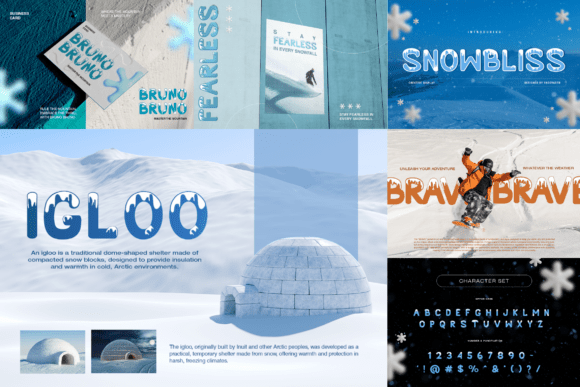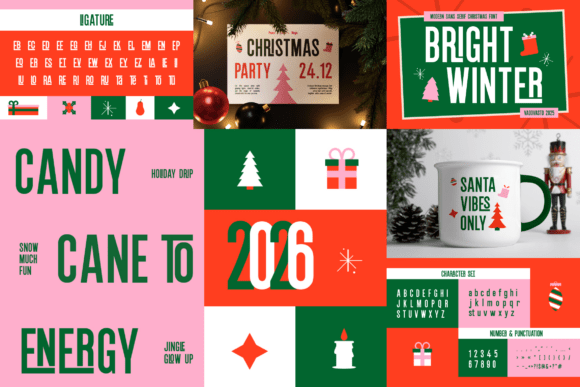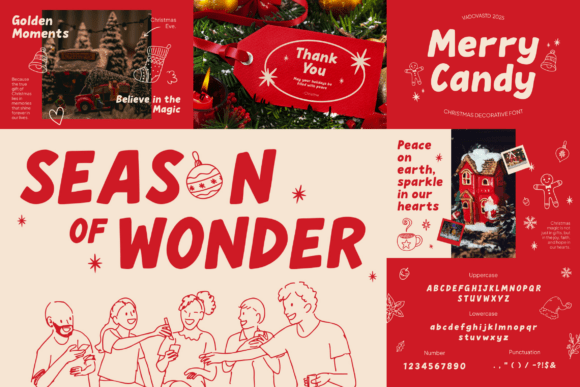
Introduction to Christmas Winter Bundle Font
As you sit by the fireplace, sipping hot cocoa and brainstorming ideas for your next creative project, you know that the perfect design resource can make all the difference. The holiday season is just around the corner, and you’re looking for a way to infuse your designs with the magic of Christmas. That’s where the Christmas Winter Bundle Font comes in – a high-quality, festive type collection that’s sure to bring warmth and joy to your designs.
This free download is more than just a font – it’s a design solution that’s tailored to the holiday season. With its playful letterforms and fun details, the Christmas Winter Bundle Font is perfect for creating holiday promotions, greeting cards, and seasonal branding that’s sure to stand out. And with a transparent background, you can easily use it on a variety of design projects, from social media content to packaging.
Key Features of Christmas Winter Bundle Font
- High-quality font design with a unique blend of festive and winter elements, perfect for creative projects and design resources.
- Includes multiple font styles, including bold, italic, and regular, for added versatility in design projects.
Honest Review: Christmas Winter Bundle Font
I recently downloaded the Christmas Winter Bundle Font for a creative project, and I’m excited to share my honest review. This font bundle is a fantastic design resource for anyone working on winter-themed or Christmas-related projects.
What works well: ✨ The fonts are high quality and come with a transparent background, making them easy to use in any design scenario. The bundle includes a variety of font styles, from elegant script fonts to bold sans-serif fonts. I particularly love the festive and playful feel of the fonts, which is perfect for holiday cards, invitations, or social media graphics.
- High-quality fonts with transparent backgrounds
- Variety of font styles to suit different design needs
- Festive and playful feel
Overall, I’m impressed with the Christmas Winter Bundle Font, and I would definitely recommend it to designers looking for a free and high-quality design resource for their winter-themed or Christmas-related projects.
How to Use Christmas Winter Bundle Font
The Christmas Winter Bundle Font is a high-quality design resource perfect for any creative project that needs a touch of festive flair. This free download offers a transparent background, making it easy to incorporate into your designs.
To get the most out of the Christmas Winter Bundle Font, experiment with different font sizes, colors, and combinations to create unique and eye-catching designs.
The Christmas Winter Bundle Font is perfect for:
- Winter-themed invitations and cards
- Festive social media graphics and posters
- Custom holiday gift tags and packaging
- Stunning winter-themed presentations and reports